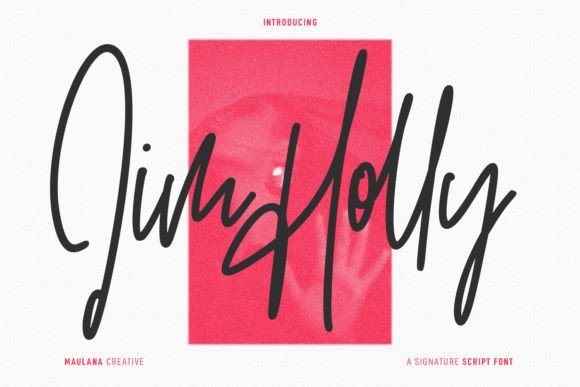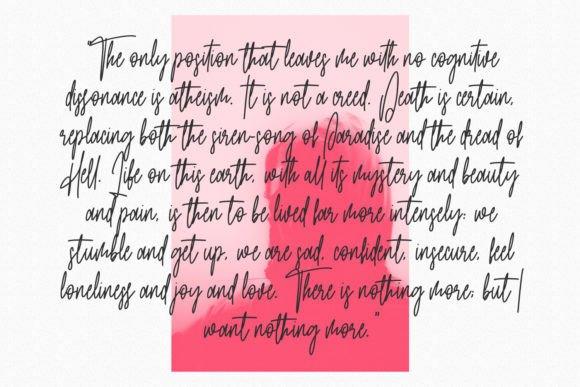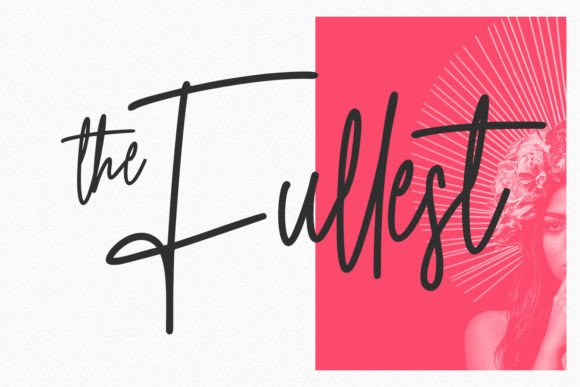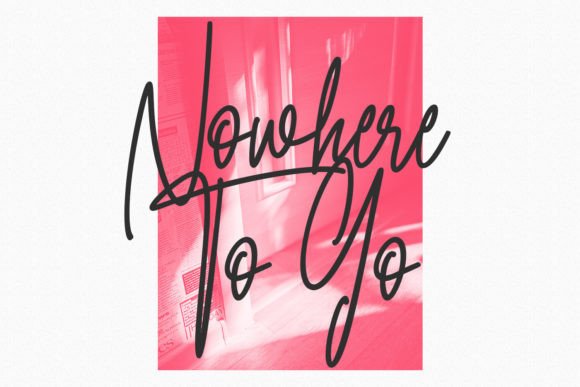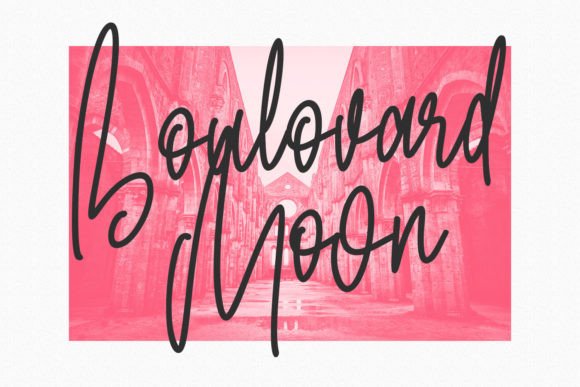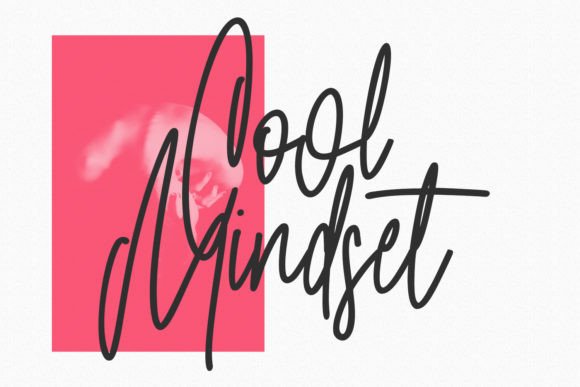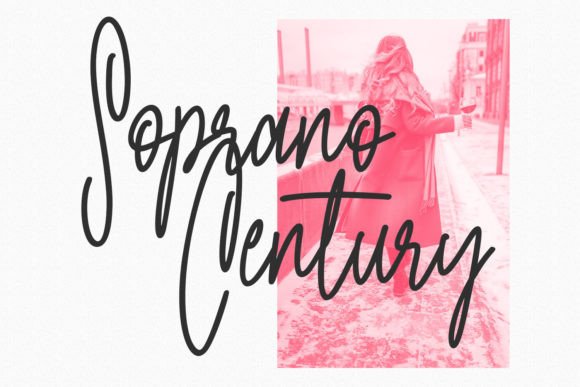
Enter Jim Holly Font, a stunning signature script font designed to make your artistic ideas shine. With its tall and smooth lines, this versatile font is perfect for Instagram posts, calligraphy scripts, and even DIY projects. As a designer, you know how crucial the right font can be in making a lasting impression. Jim Holly Font is a valuable addition to your design toolkit, offering a unique blend of elegance and sophistication that’s sure to captivate your audience.
Key Features of Jim Holly Font
- Unique Characteristics: Jim Holly Font features a unique, handwritten style with bold lines and expressive flourishes, making it perfect for creative and artistic applications.
Jim Holly Font Review
Initially, I was drawn to the whimsical nature of the Jim Holly font. ✨ It has a playful, handwritten feel that could add a unique touch to various design projects. The font’s irregularities and organic shapes give it a charming, personal quality that can be quite endearing.
One of the Jim Holly font’s strengths is its versatility. ✨ It can be used for both formal and informal projects, from wedding invitations to social media graphics. The font’s range of weights and styles makes it easy to find the perfect version to match your design’s tone and aesthetic.
However, there are a few limitations to consider. ⚠️ The font’s irregularities can also make it challenging to read in certain contexts, particularly in small text sizes. Additionally, the font’s unique characteristics may not be suitable for projects where readability is a top priority.
Overall, the Jim Holly font is a great choice for designers looking to add a touch of personality to their projects. While it may not be the best fit for every design, it’s definitely worth considering for projects that require a more playful, handwritten feel.
- Unique, handwritten feel that can add personality to designs
- Versatile and suitable for both formal and informal projects
- Range of weights and styles available
- May be challenging to read in small text sizes
- Not suitable for projects where readability is a top priority
Getting the Most Out of Jim Holly Font
To get the most out of Jim Holly Font, use it for:
- Titles and headings
- Body text in creative projects
- Designing invitations and event materials
Jim Holly Font is commonly used for:
- Event marketing materials
- Graphic design projects that require a